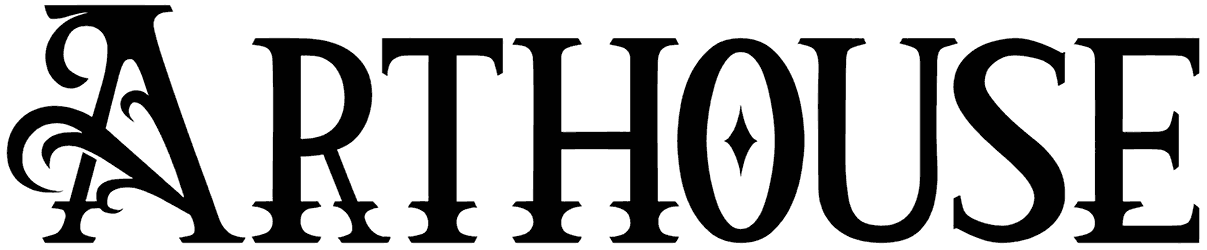
The Good Castyll is a fantastic font that you only have the chance to see in particular situations. This font has a psychedelic style and immediately takes your attention. The Good Castyll font’s letters are bold with a curvy shape that play with your eyes and seem entertaining.
This fancy font may help you in cases such as animations, children’s books, and cartoons; however, it does not support numbers and symbols. Download this font now and enjoy its amazing design.